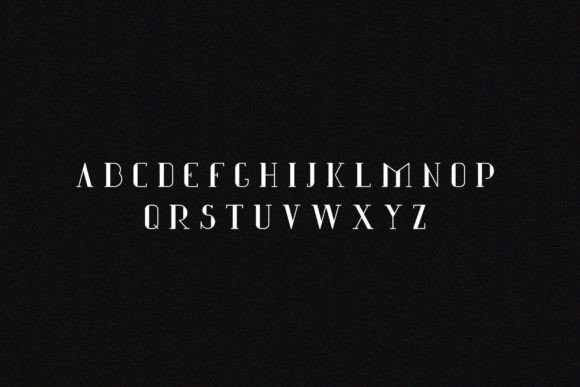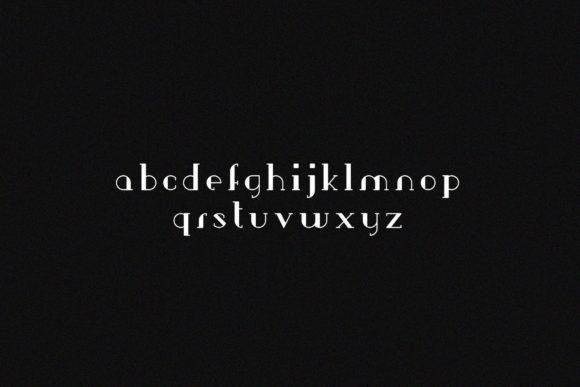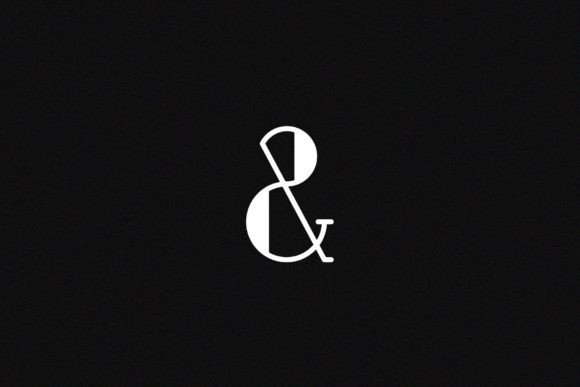
Typex III Font
TYPEX III FONT SPECIMEN
TypEx III – experimental font family
TypEx III is an elegant slab serif font suitable for any modern project that needs impeccable typography.